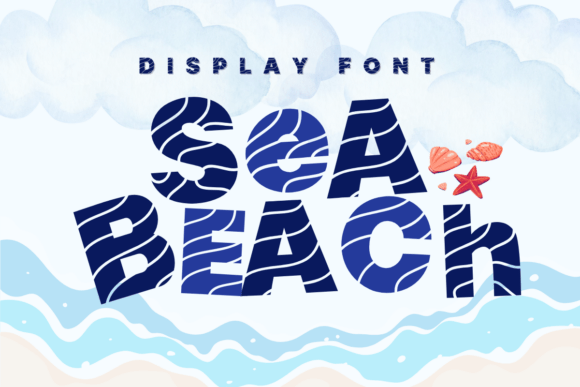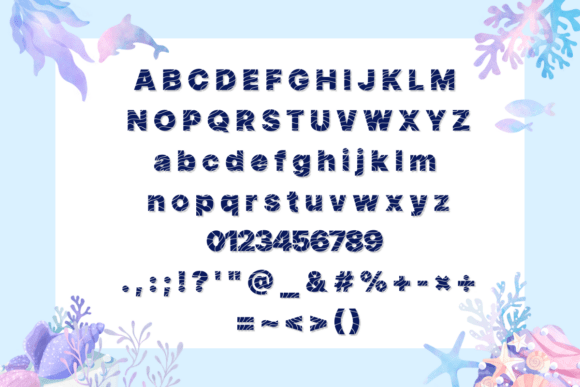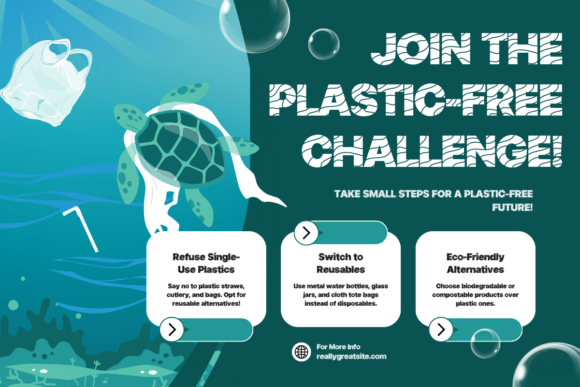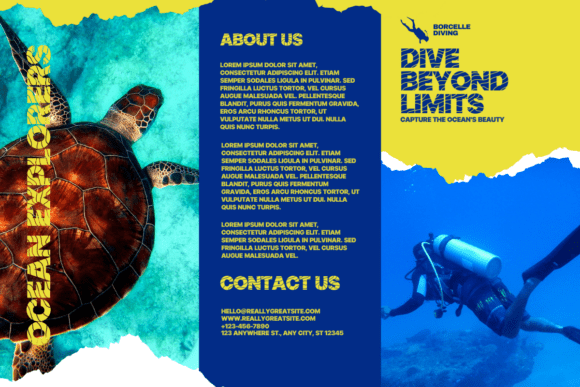
Sea Beach Font
About the Sea Beach Font
The Sea Beach Font offers a perfect balance of form and function for your design needs. Sea Beach
is a bold and breezy display font inspired by ocean waves and coastal adventures. With playful curves and wave-patterned cutouts, this typeface evokes the rhythm of the sea—perfect for beach-themed posters, travel branding, summer event flyers, and tropical product packaging. It’s eye-catching, fun, and effortlessly cool.
Sea Beach Font Example